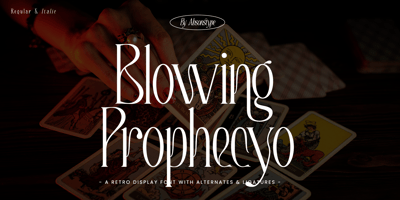
Blowing Prophecyo
Blowing Prophecyo font
Blowing Prophecyo Font Family was designed by Edhi Prayitno and published by Absonstype. Blowing Prophecyo contains 2 styles and family package options. BLOWING PROPHECY is the Unique Serif display typeface with combine uppercase and lowercase looks and feel nice balanced. Provide with alternates and ligatures font in variant style make the design letter looks nice. Honestly it works perfectly for headlines, logos, posters, packaging, T-shirts and much more.Recommended to use in Adobe Illustrator or Adobe Photoshop with opentype feature.Ligatures feature is default setting in Adobe Illustrator or Adobe Photoshop in Uppercase character. So when you want not to use the ligatures.Open glyphs panel : In Adobe Photoshop choose tool Window >> Character and then please click fi symbol In Adobe Illustrator choose tool Window >> Type >> Open Type and then please click fi symbol How to access Alternates Character?Open glyphs panel : In Adobe Photoshop choose tool Window glyphs In Adobe Illustrator choose tool Type glyphs If you have questions, just send me a message and I’m glad to help.Have a great day,Absonstype